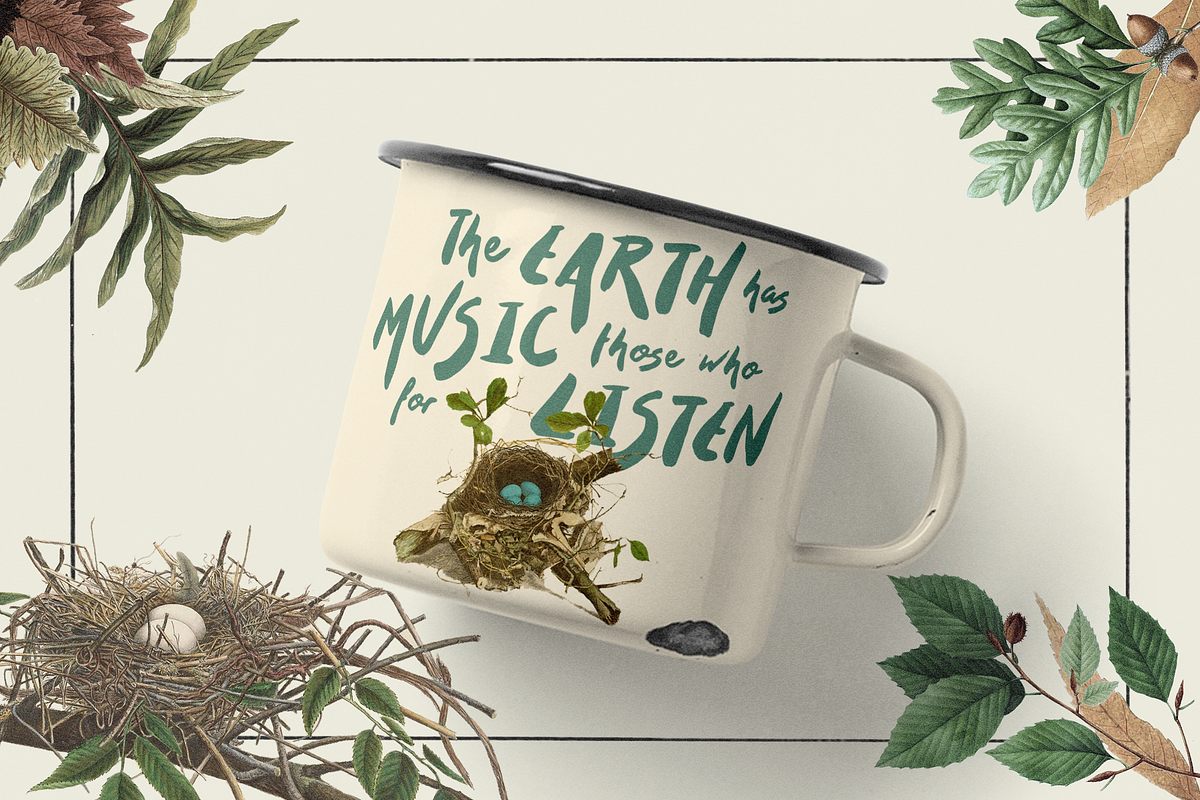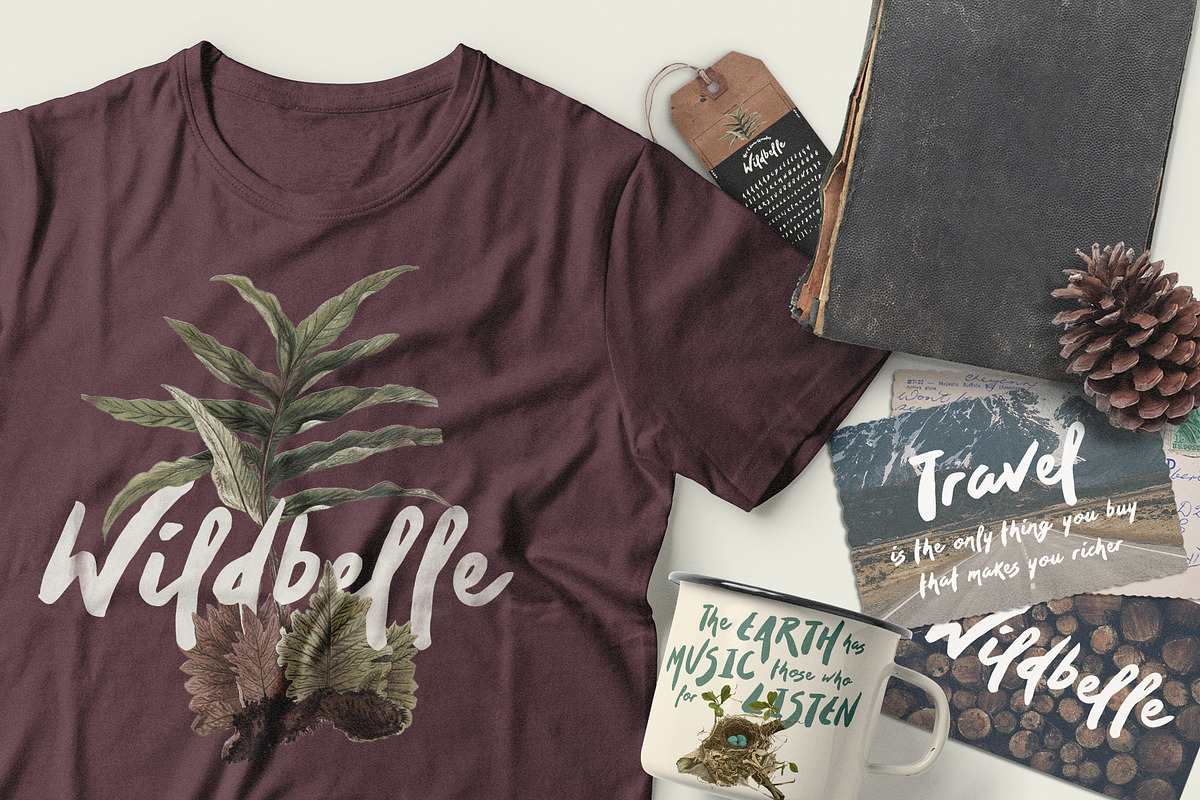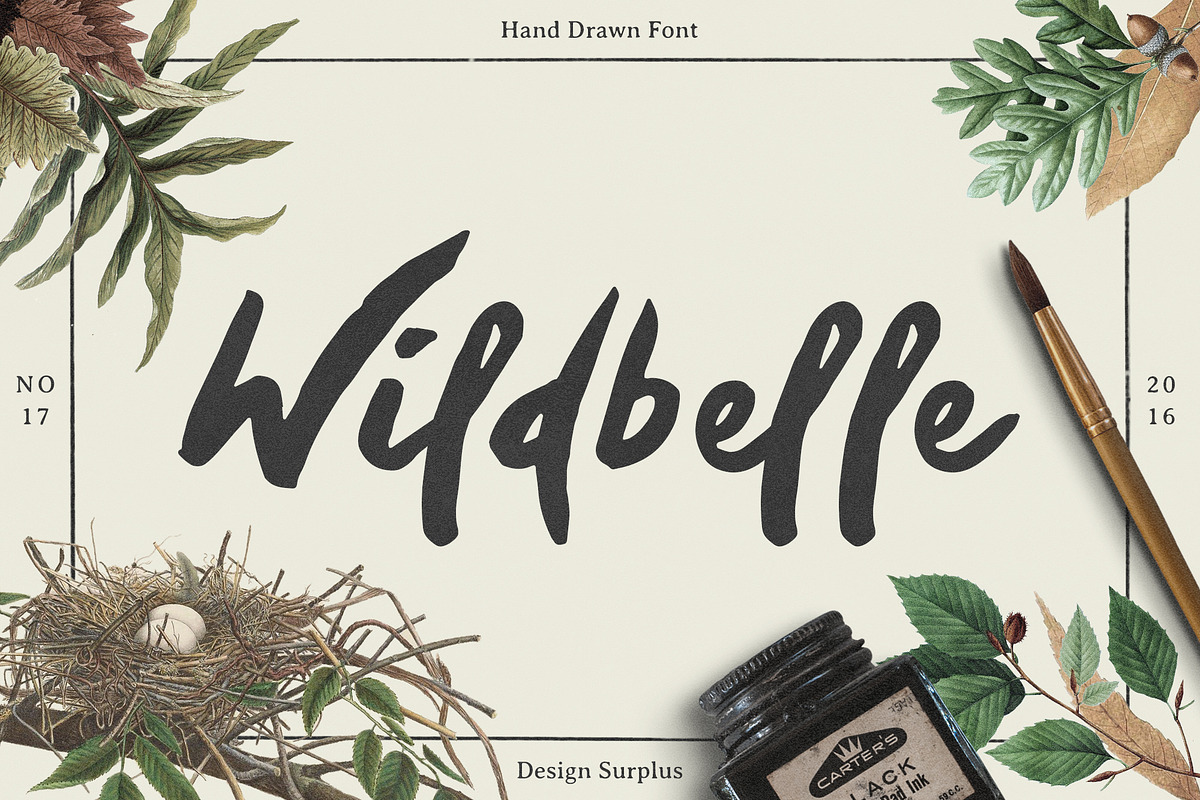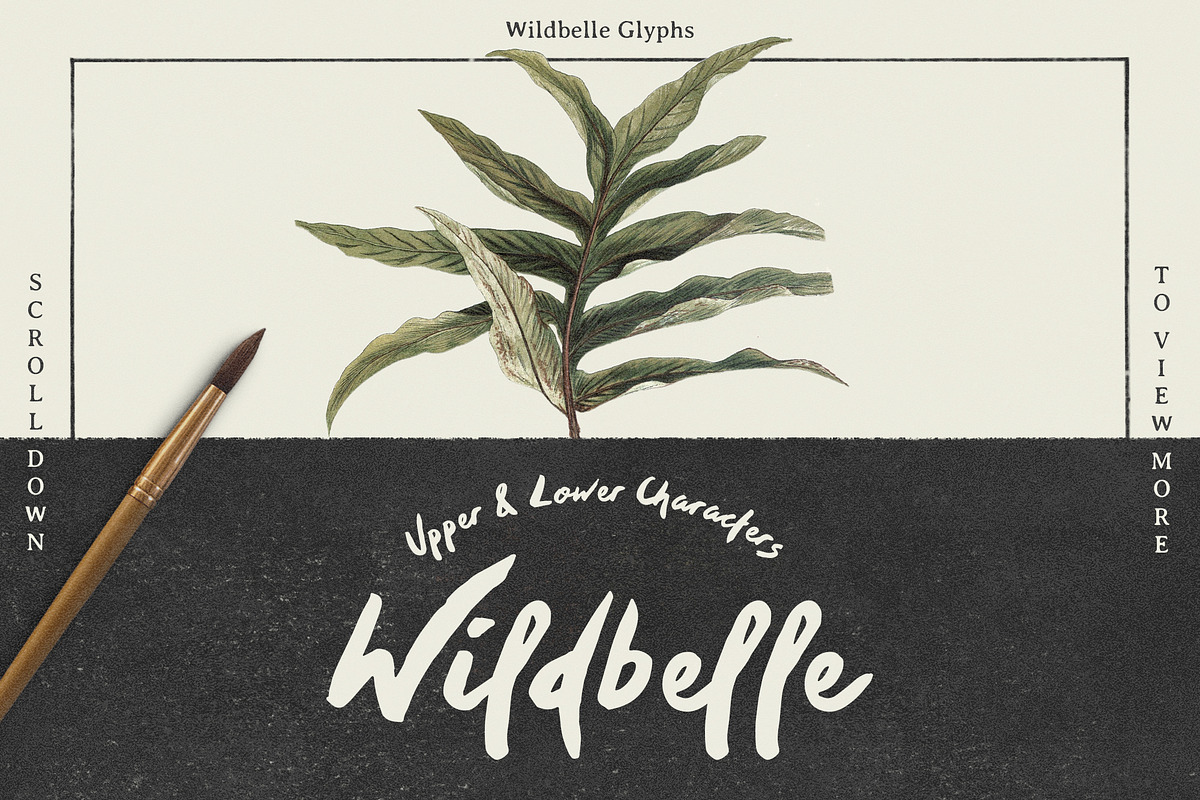
Wildbelle Font
Wildbelle Font by Design Surplus is a font selected for branding, posters, packaging, typography.
- This new brush script contains 138 characters with language support.
Why Wildbelle Font is worth a look
Wildbelle Font by Design Surplus fits naturally into Branding, posters, packaging, typography.